Managing inventory, sales, or product tracking is not just simple calculations. This process often requires using barcodes for more standard and productive worksheets in Excel. Businesses, warehouses, and even small shops use barcode integration to track their products properly. By barcode, you can easily convert product codes or SKUs to scannable barcodes, making the workflow faster and simpler.
If you want to know how to add barcode font in Excel, follow these simple steps –
➤ Make a new column to store the barcodes.
➤ In the selected cell of the column, write the following formula –
=”*” & B2 & “*”
This adds asterisks before and after the value of the B2.
➤ Drag the cells and apply the same formula for each cell in the column.
➤ Select the entire column and choose the Libre Barcode 39 from the font lists.
➤ Press Enter to generate the barcodes.
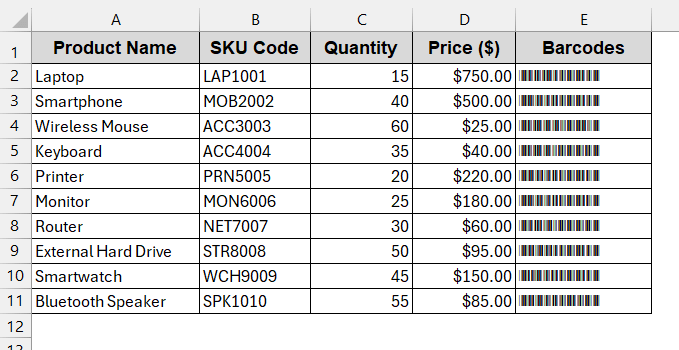
In this article, you will explore all the practical ways to add barcode font in Excel. Starting from free fonts like Code 39 to advanced methods like add-ins, VBA, and APIs, we will also introduce third-party apps for this. By the end, you will know which method fits your goals, whether printing bulk labels or creating professional reports. So, keep reading to turn plain Excel into functional and scannable barcodes.
What is Barcode Font in Excel?
A barcode font is a special type that converts regular alphanumeric characters into a machine-readable pattern. Instead of displaying the product in simple numbers (like 12345), it displays vertical black lines that can be scanned to retrieve product information. Without using complex software, this helps convert the simple product codes, SKUs, or IDs from your sheets into a scannable barcode.
The common types of barcode fonts are Code 39 and Code 128. The Code 39 is simpler and supports letters, numbers, and special characters. On the other hand, Code 128 is more complex but has the full support of the ASCII set. As a result, beginners often prefer Code 39 for their flexible uses, while advanced learners go for the latter.
Install and Apply a Free Barcode Font by Code 39
Applying Code 39 is the easiest way to add the barcode to your sheets; you only need to install the free barcode software first. Once installed, you can view them in the Fonts section like any other fonts, like Arial or Times New Roman. Simply selecting the barcode fonts will transform them to codes that can be scanned to get their information.
For this method, we will convert the SKU Code of the following products into barcodes –
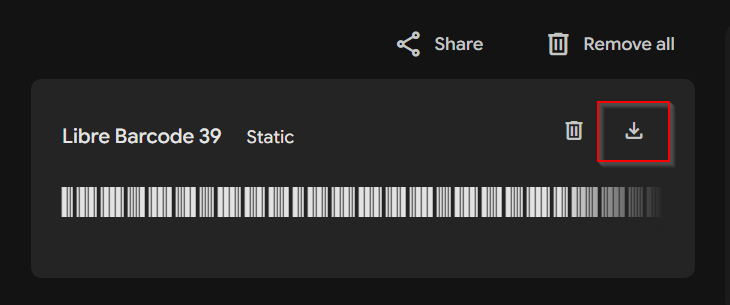
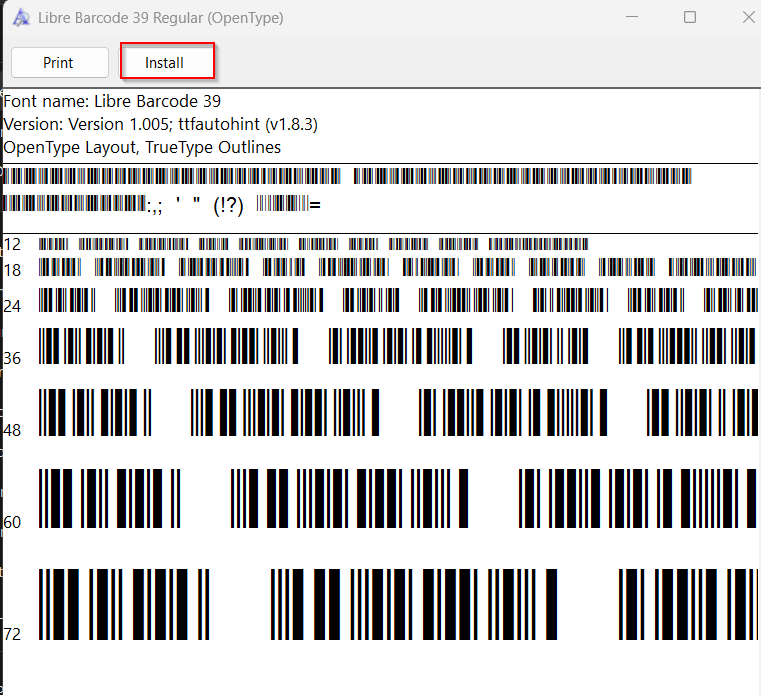
Steps (Adding Barcode Font):
➤ Create a new column in your datatable to store the barcodes.
➤ In the first cell of the new column, write the following formula –
="*" & B2 & "*"
It means you are concatenating asterisks before and after the value of column B (SKU Code) to make it scannable for barcodes..
➤ Drag and fill the rest of the columns to apply the same formula.
➤ Now select the entire column you created and the Font barcode from the Fonts section. Or search by Libre Barcode 39.
➤ Press Enter to generate the barcode font for the new column based on the SKU Code.
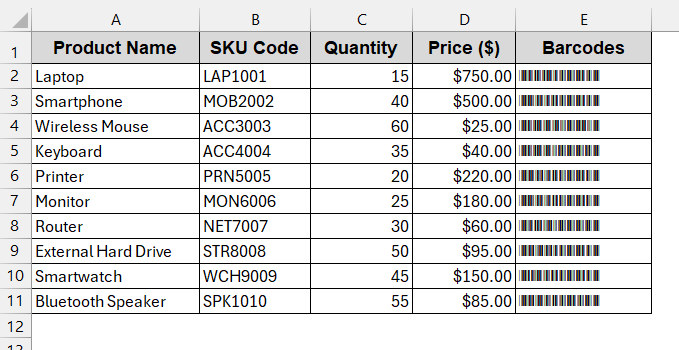
➤ For proper scanning, increase the barcode font size to 16 to 24 pts.
Note:
Code 39 requires a starting and ending character, here asterisks (*).
Use a VBA Font Encoder for Advanced Barcodes (Code 128)
While Code 39 is quite simple and works with easy manipulation, it has its own limitations. More advanced barcodes like Code 128, UPC, and EAN are more compact and reliable. But, they need proper encoding. These barcodes include check digits, special control characters, and compression rules that Excel cannot generate by itself. VBA can easily encode this encoding. This will correctly display the code in the correct format and be scan-ready for future uses.
We will use the VBA method to add Code 128 to the barcodes.
Steps:
➤ Go to the Developers tab and click on Visual Basic.
➤ In the launched VBA window, click the Insert tab and choose Module.
➤ In the new module, paste the below VBA code of the Code 128 encoder function –
Concluding Words
Adding the barcode data is the most practical and one of the error-free approaches to track your data. It does not matter what you choose. Be it the beginner-friendly Code 39, the professional accuracy of Code 128, or advanced solutions like API or Third-Party tools, Excel gives you full flexibility. You can not just print labels with this; you can transform your data into manageable ways. So, don’t limit yourself. Try all the methods, download our workbooks, and pick the one that best suits your workflow.